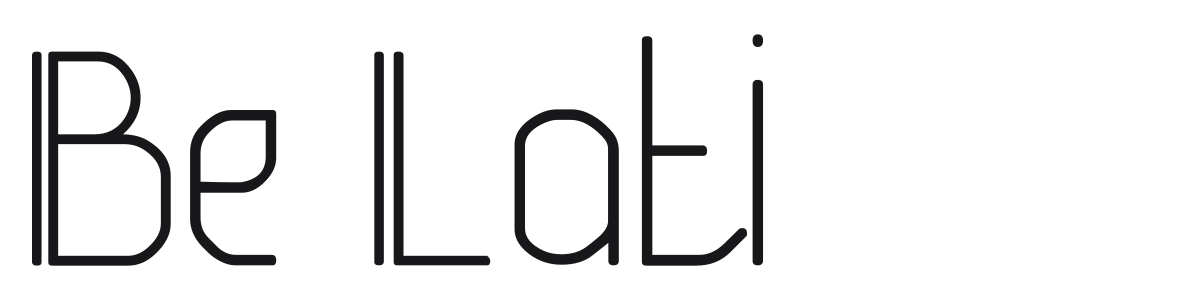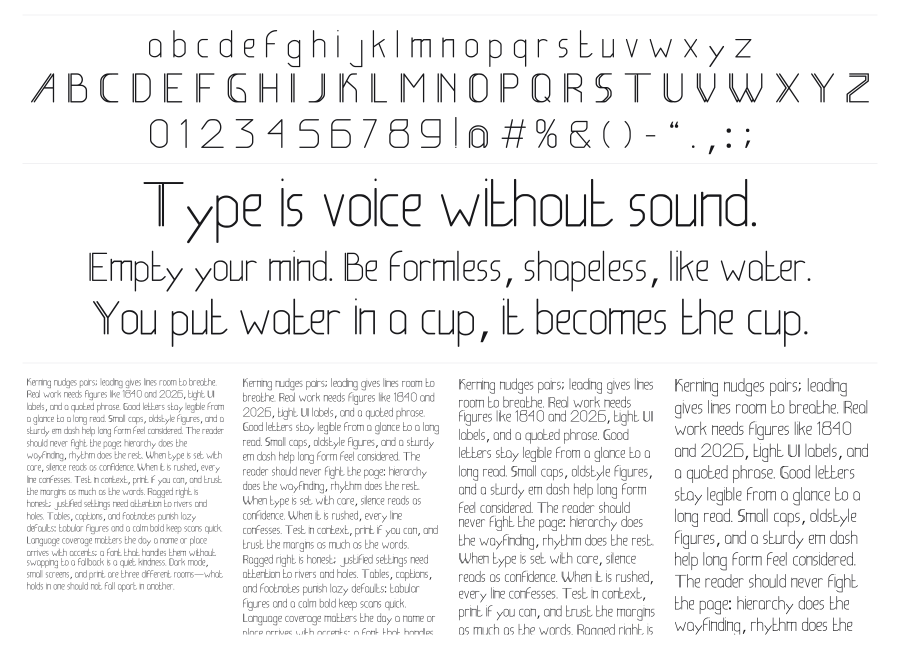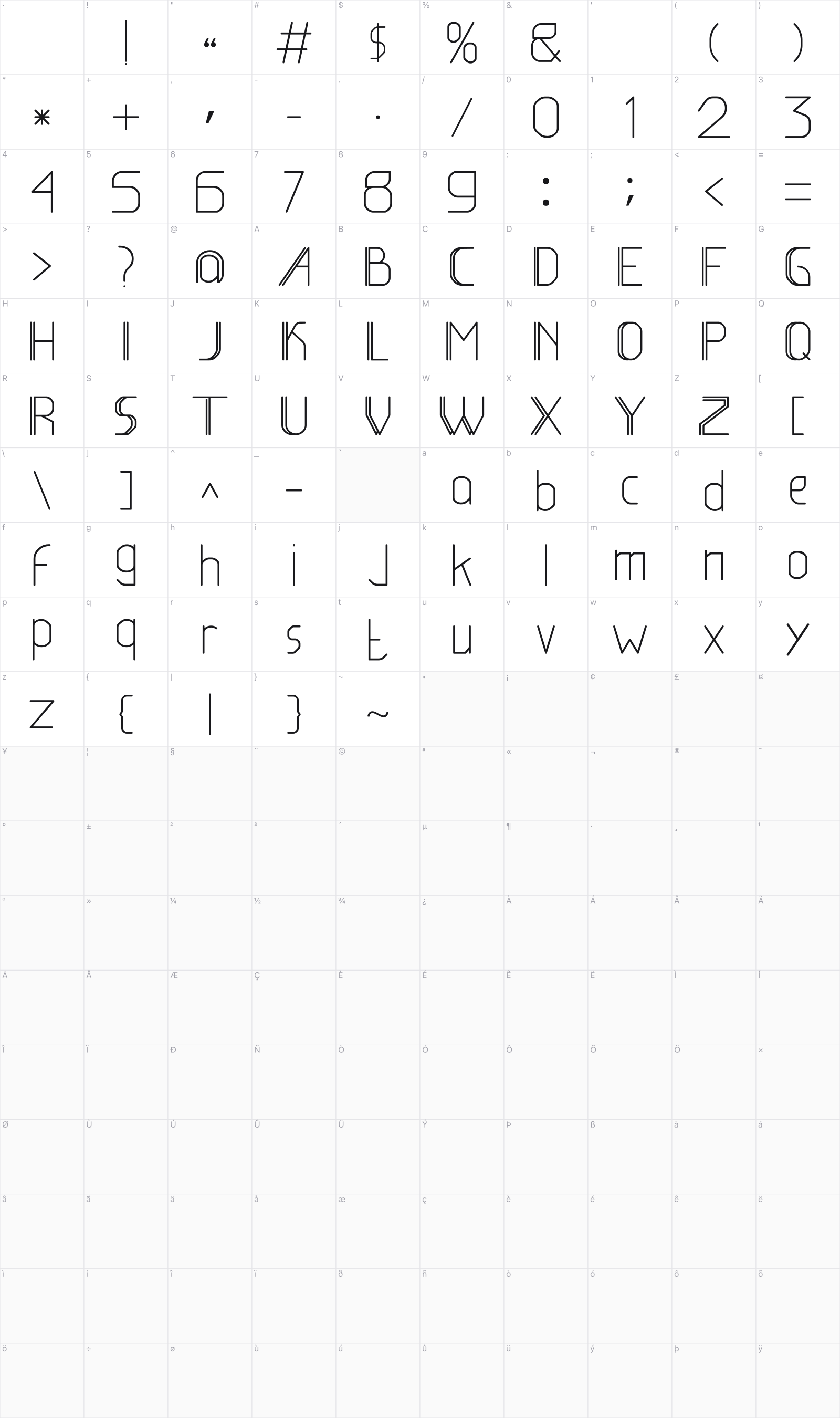
Be Lati
Be Lati is an ultra-thin geometric sans with an exceptionally light stroke and clean circular forms. The near-monoweight construction and open apertures give it a quiet, airy elegance that works well in fashion, beauty, and lifestyle contexts. Subtle character details keep it from feeling anonymous at large sizes.